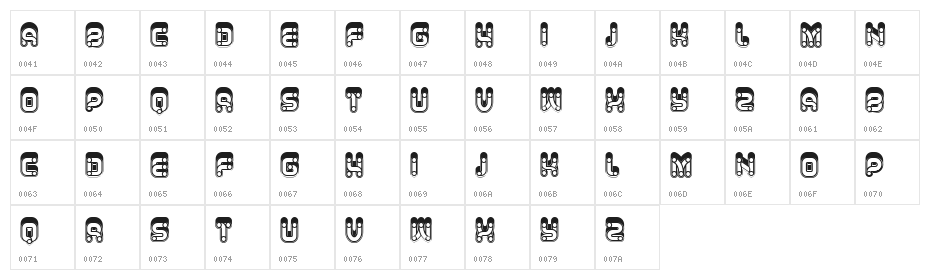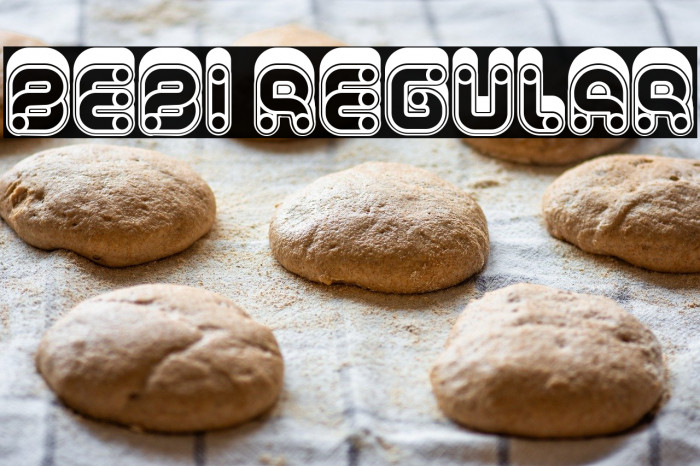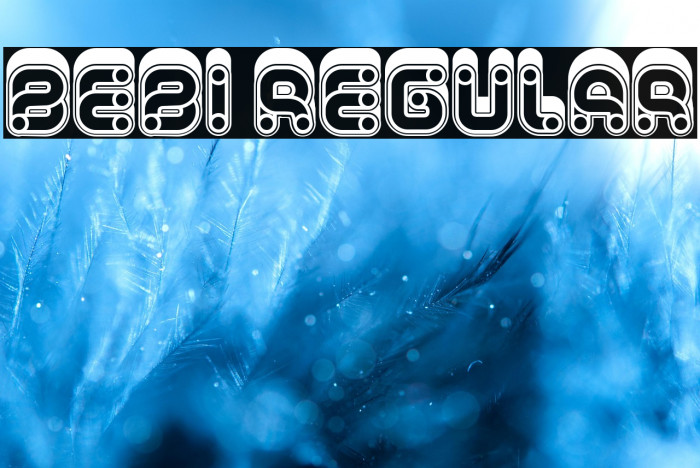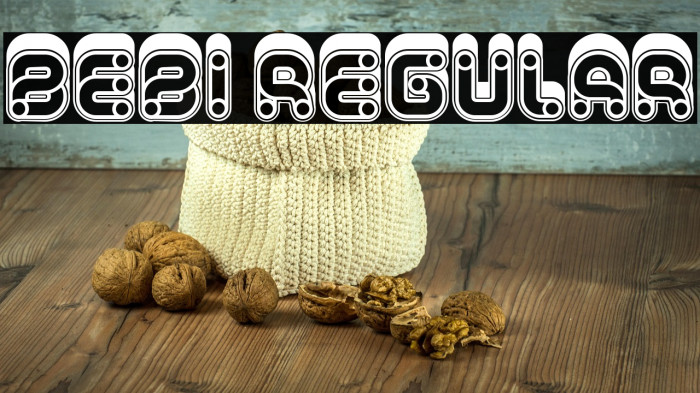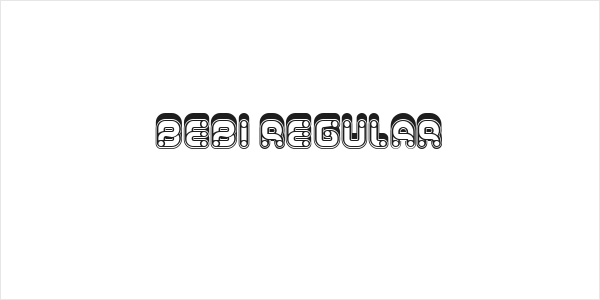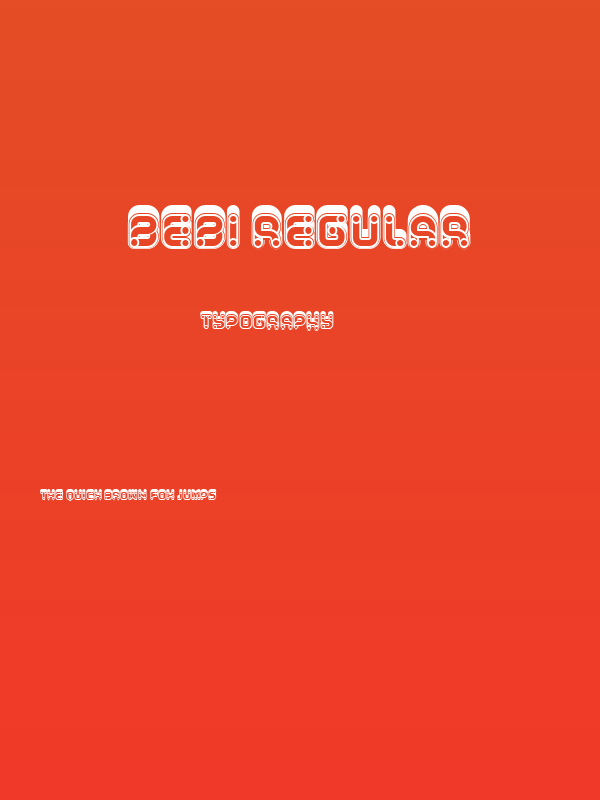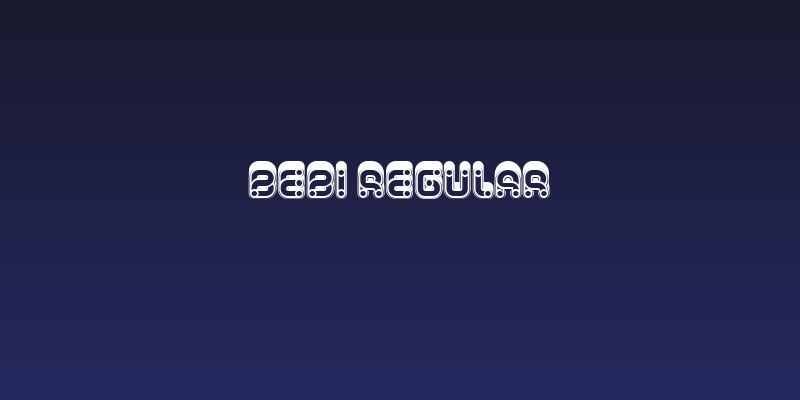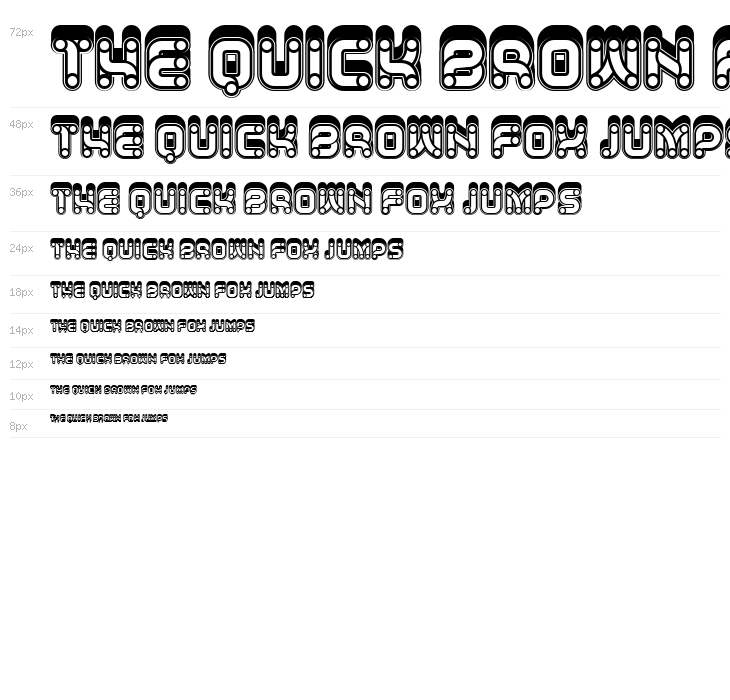
Bebi Regular Font
Bebi Regular Description
This font features a bold, decorative style with a unique, layered design. Each character is outlined with a thick, black border, and the interior is filled with a series of concentric lines that create a sense of depth and dimension. The overall appearance is playful and eye-catching, making it ideal for projects that require a strong visual impact. The uppercase letters are consistent in height and width, providing a uniform look across the alphabet. The design is reminiscent of retro or vintage styles, yet it maintains a modern twist with its geometric patterns.
| Overall Style | Modern, Vintage |
| Proposed Projects | Ideal for posters, logos, and branding projects that require a bold and playful aesthetic. |